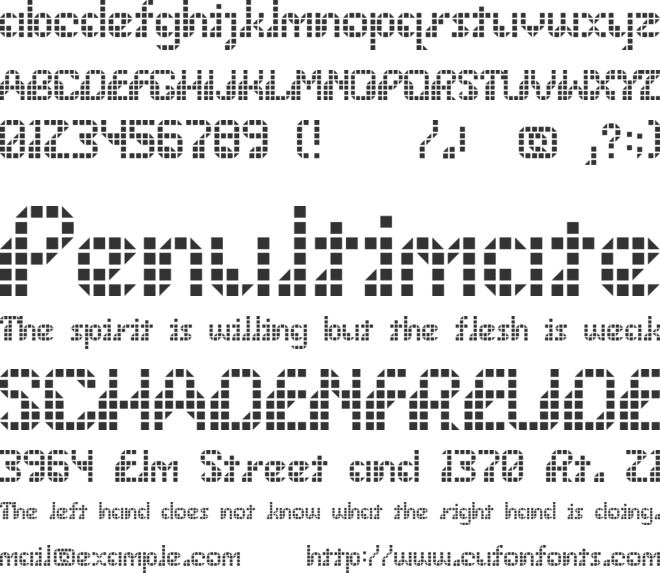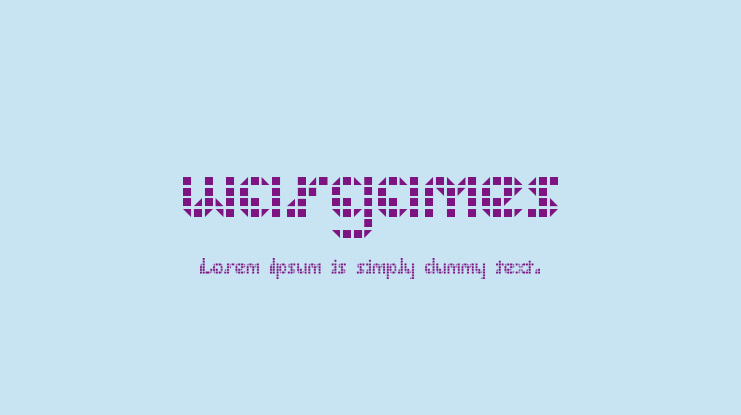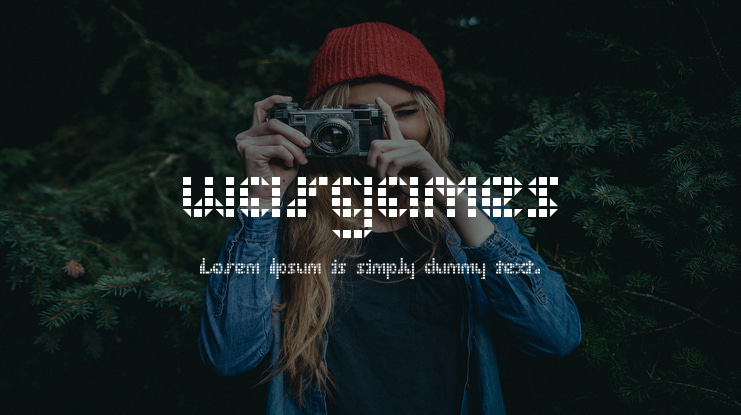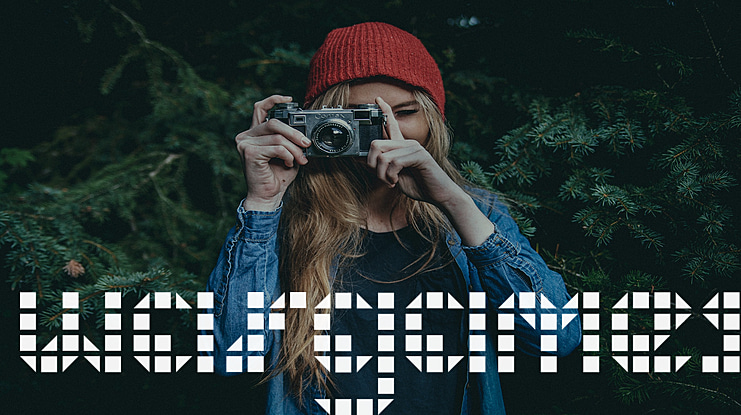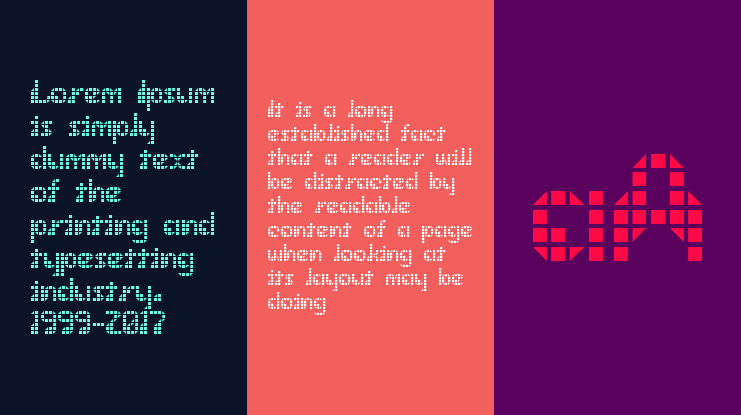
wargames Font
I recently got the DVD for the movie "wargames". This is a great old movie. It is the whole reason I got into computers. I always dreamed of changing my grades in highschool. (It never happened) heh.. Anyway, enjoy the font.